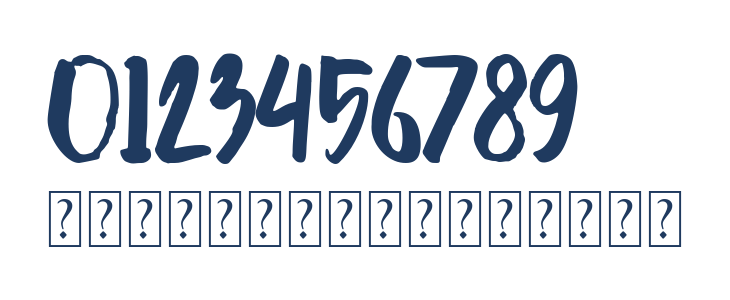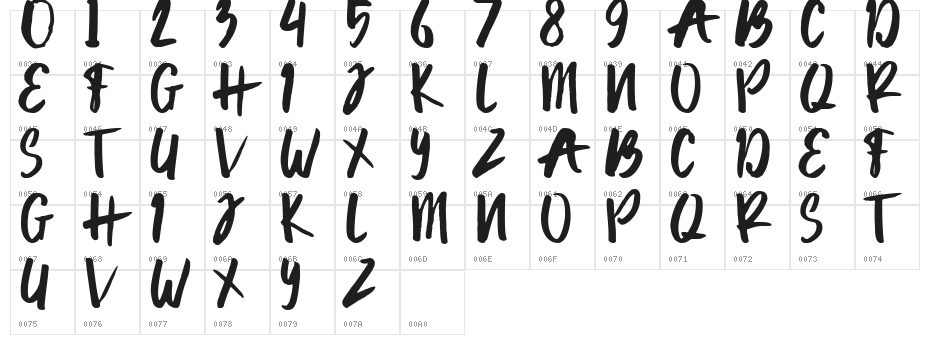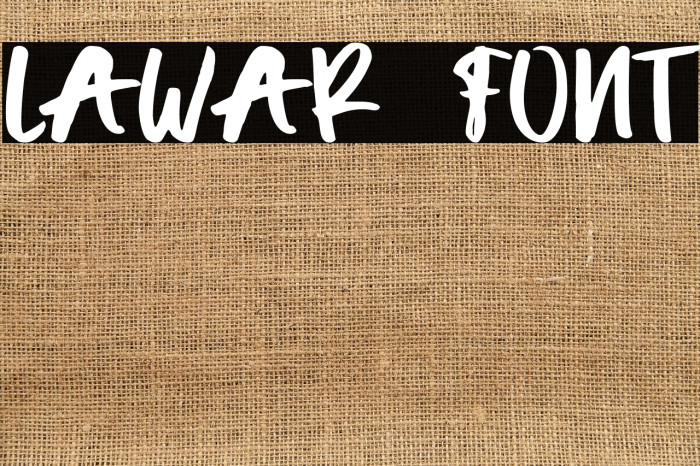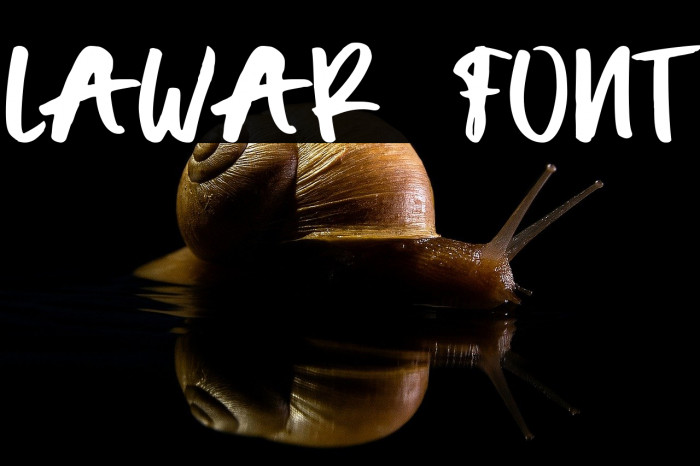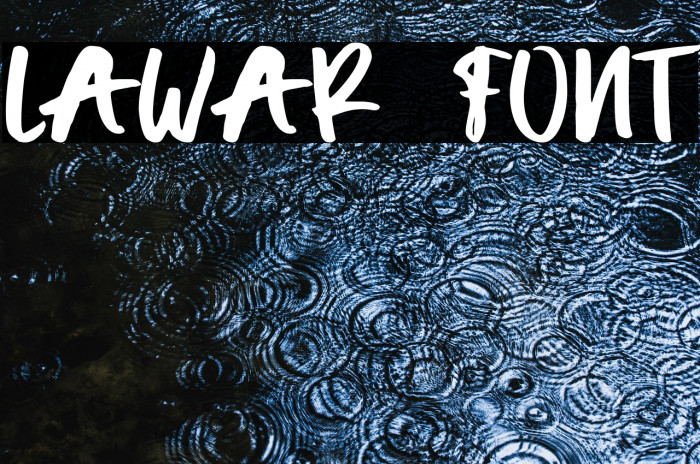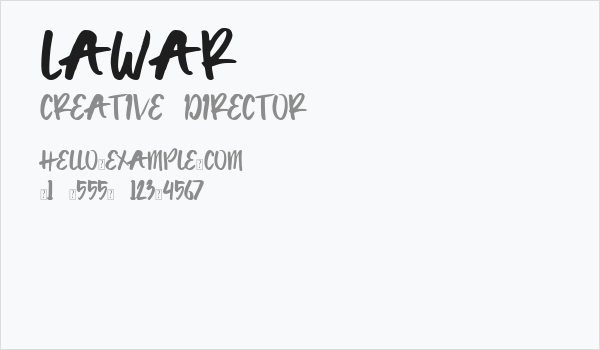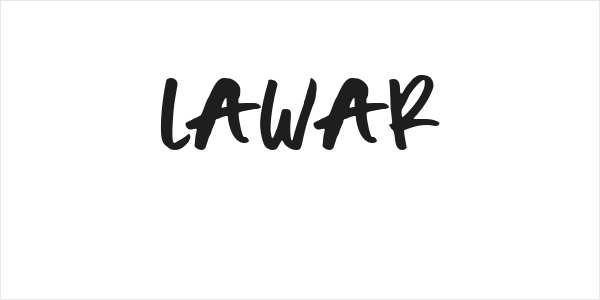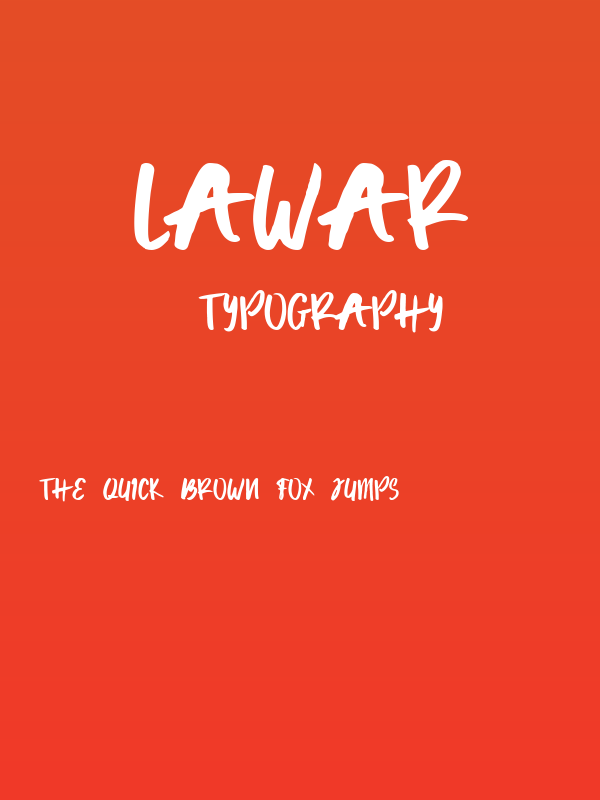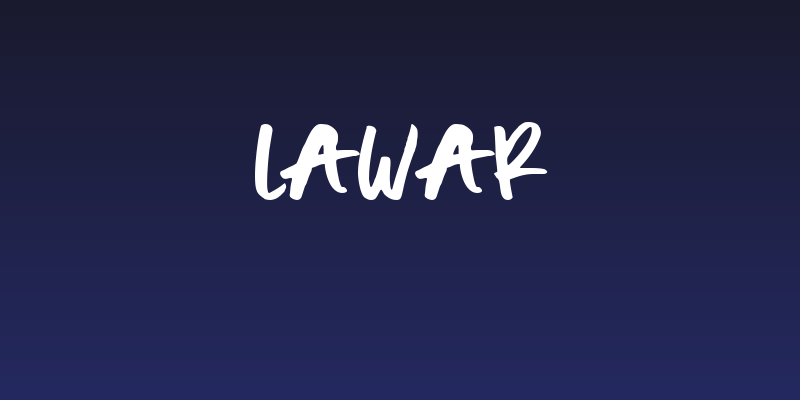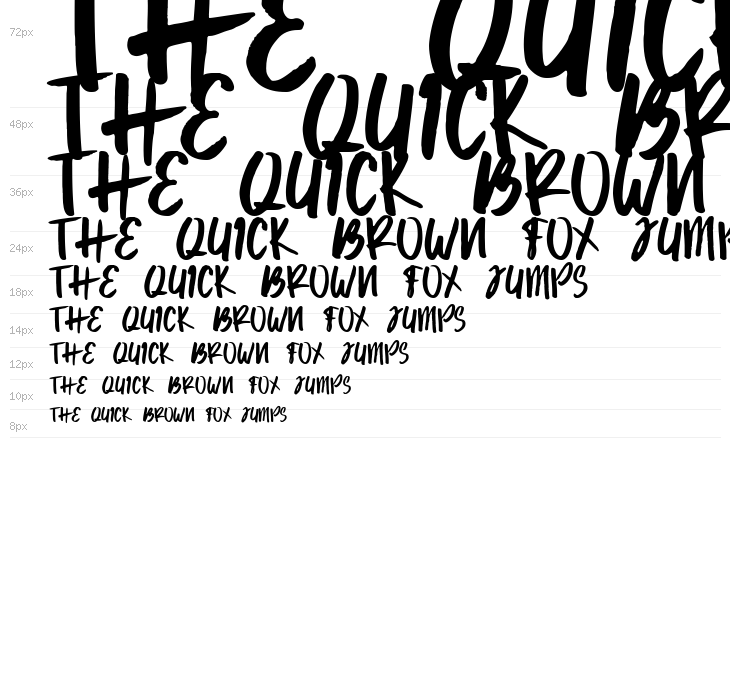
Lawar Font
Lawar Description
This font features a bold and expressive handwritten style, characterized by its thick strokes and dynamic curves. The letters exhibit a sense of movement and energy, with varying stroke widths that add a lively and informal touch. The uppercase and lowercase letters maintain a consistent style, while the numerals and special characters complement the overall aesthetic. The font's playful and artistic nature makes it suitable for creative and eye-catching designs. Its bold presence ensures readability while maintaining a unique flair.
| Proposed Projects | Ideal for branding, posters, social media graphics, and any project requiring a lively, artistic touch. |